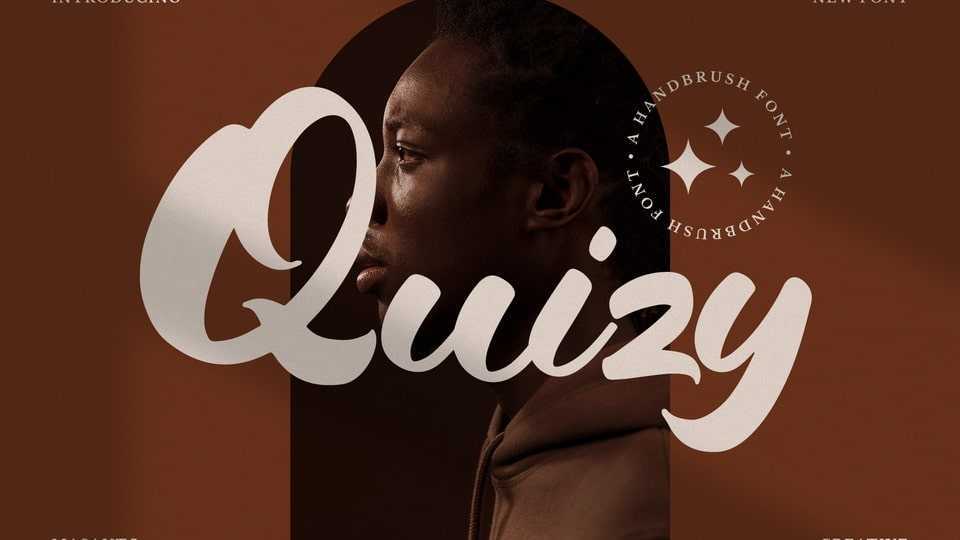
Download Quizy font, a casual and bold script style handwriting that makes this font look elegant, natural, and perfect for any awesome projects that need hand crafted taste.
Designer: Kangfont Studio